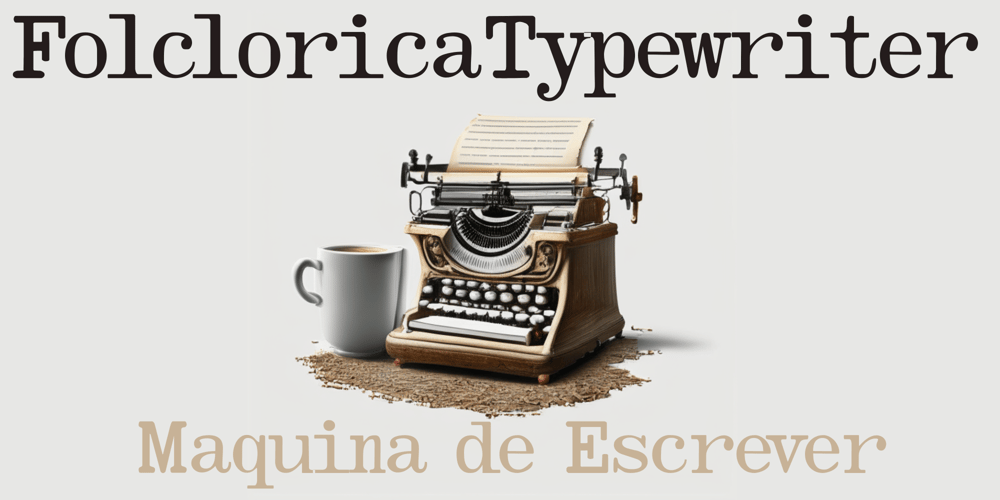
Folclorica Typewriter Font Family was designed by Paulo W and published by Intellecta Design. Folclorica Typewriter contains 1 styles and family package options. The Folclorica Typewriter is a unique typewriter font design, great for mimicking the effect of typewriting older machines. Has an bold and slab style, good for exquisite designs.